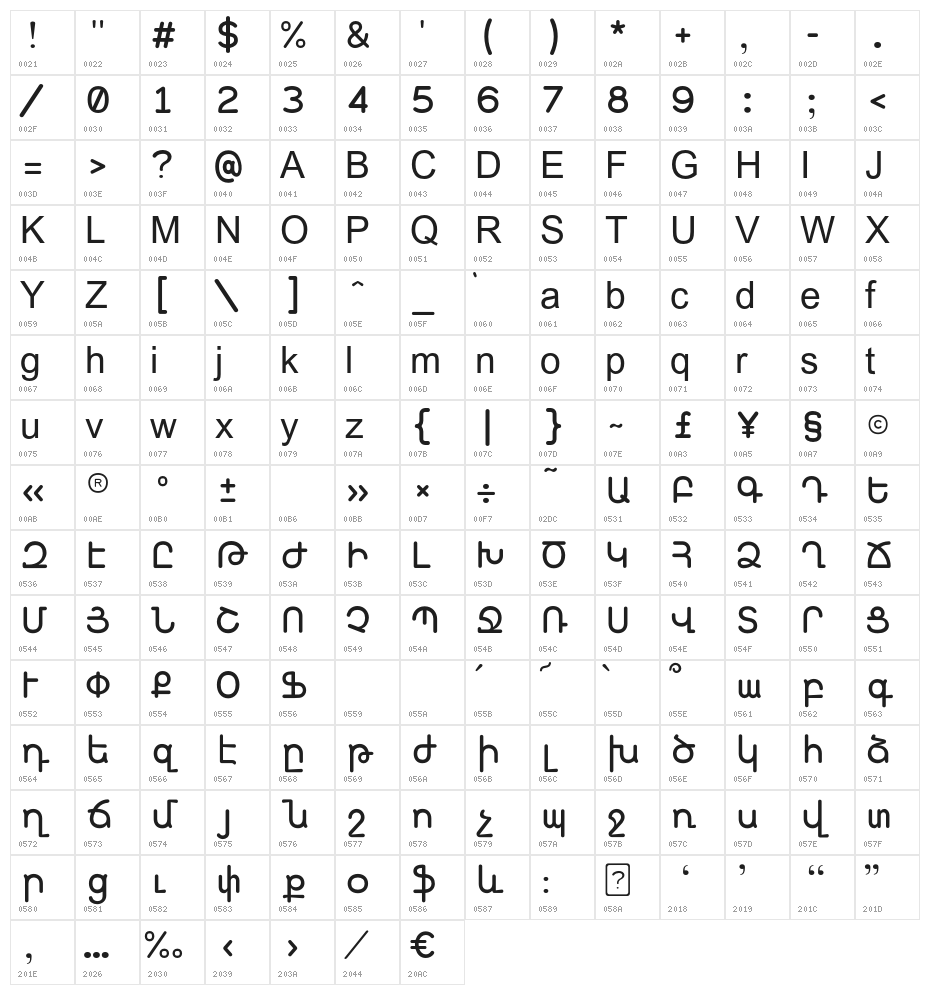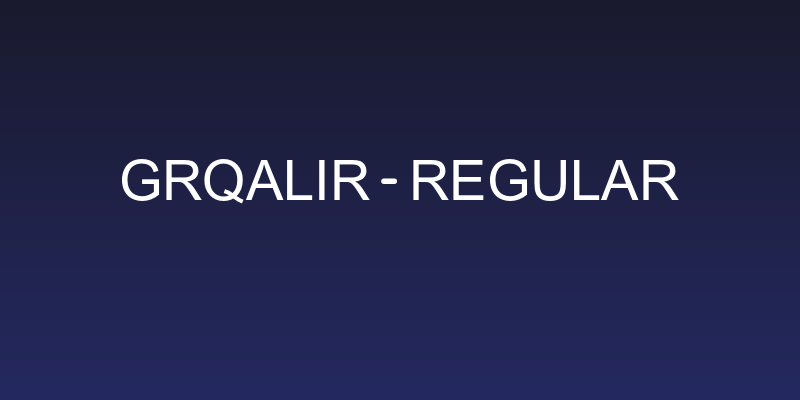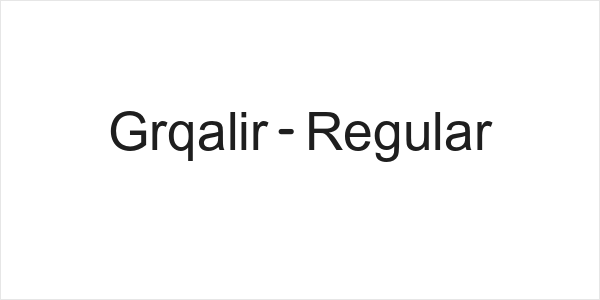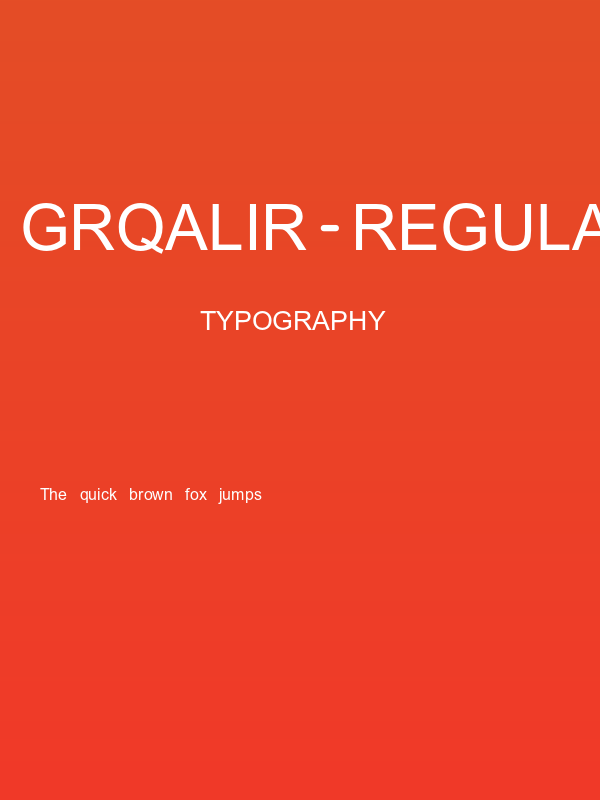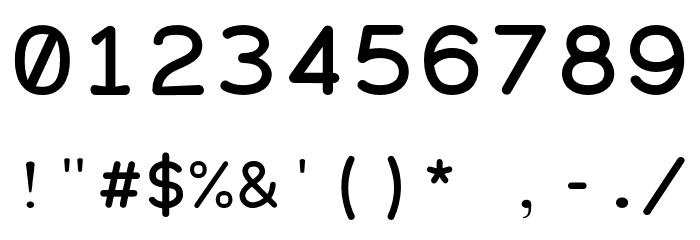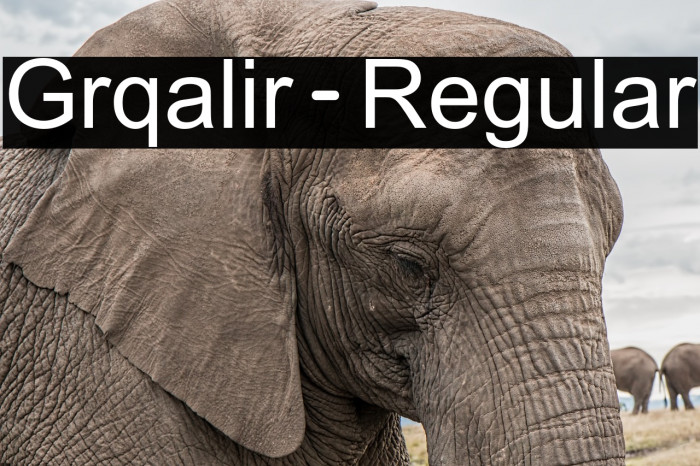
Grqalir-Regular Font
Grqalir-Regular Description
This font features a clean and modern sans-serif design, characterized by its uniform stroke width and geometric shapes. The uppercase and lowercase letters are well-proportioned, offering excellent readability. The numerals are distinct and align perfectly with the overall style, while the special characters maintain the font's cohesive look. Its simplicity and clarity make it versatile for various applications, ensuring it stands out without being overly decorative.